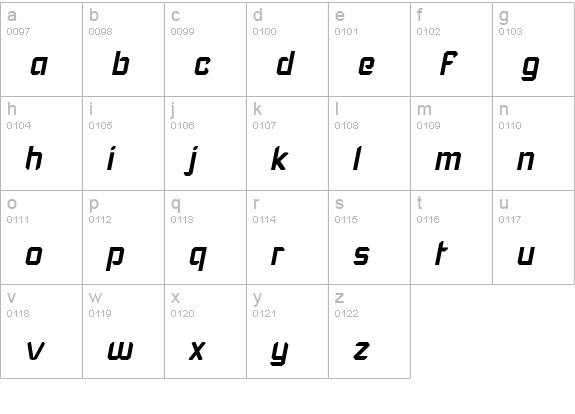
Karisma Italic Font Details
Karisma Italic is a distinctive, italic variant in the Karisma typeface family \xE2\x80\x94 well suited to design and typography projects.
Karisma Italic font is a stylish and elegant typeface that exudes sophistication and charm. The slanted angles of the italic characters give it a modern and dynamic look, perfect for adding a touch of flair to any design project. The flowing curves and unique letterforms of Karisma Italic make it a versatile choice for both headings and body text. One of the best features of Karisma Italic font is that it is available for free download at FontsMarket.com. This means that you can easily access this beautiful typeface without any cost, making it a great option for designers on a budget or those looking to experiment with new fonts. With its sleek design and effortless style, Karisma Italic font is sure to elevate your projects and leave a lasting impression on your audience.